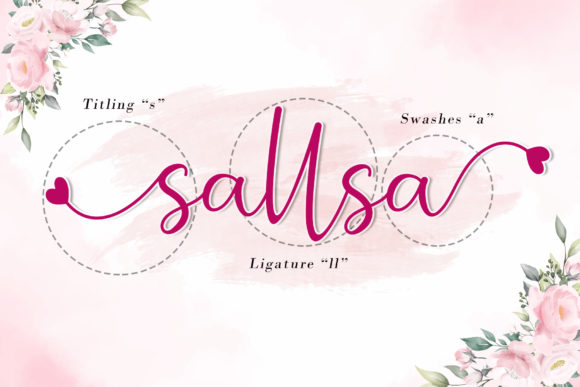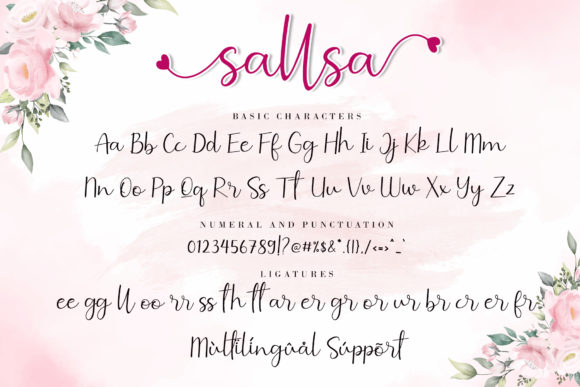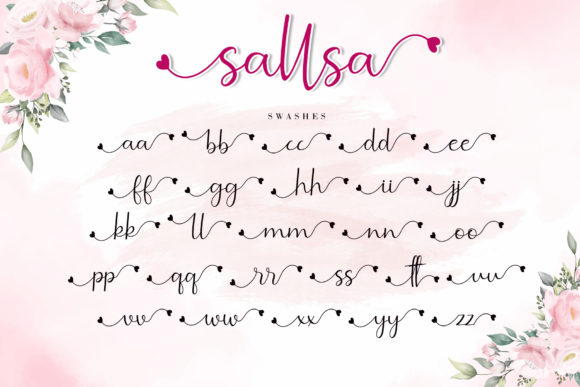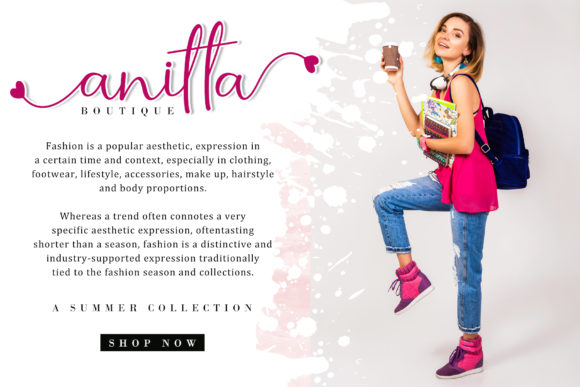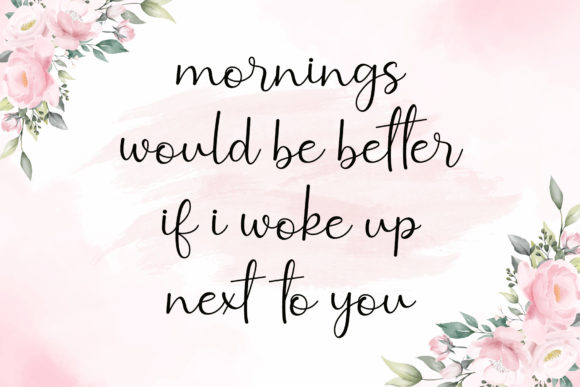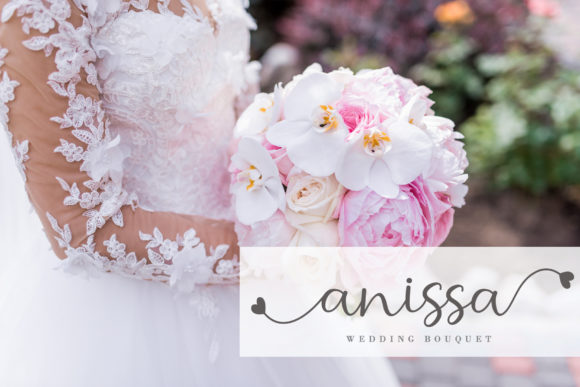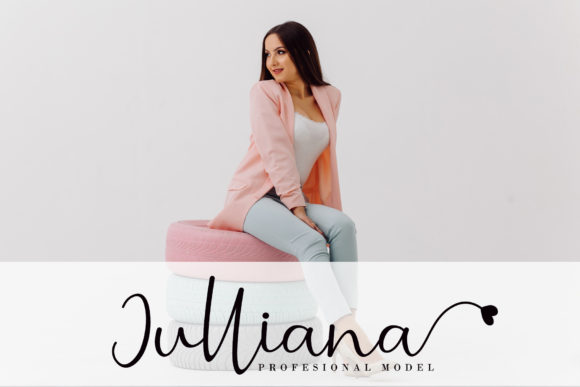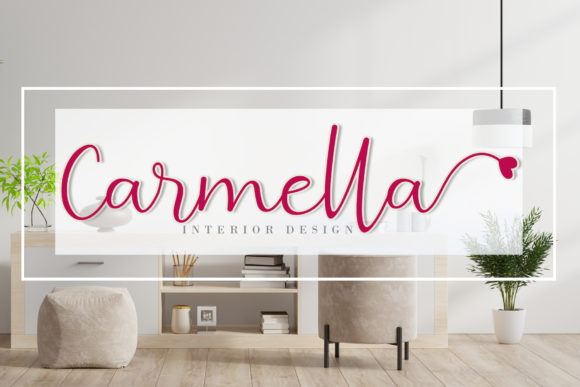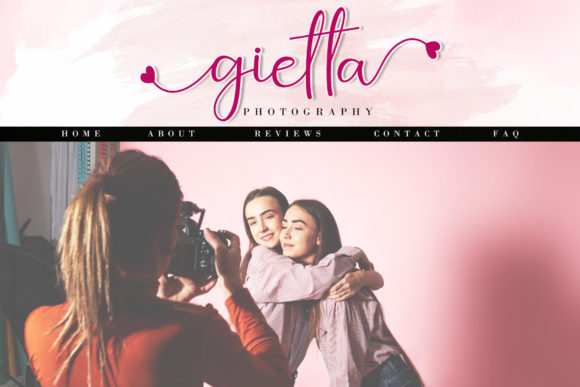
Sallsa Font
About Sallsa Font
Sallsa is a sweet and delicate handwritten font. It looks stunning on wedding invitations, thank you cards, quotes, greeting cards, logos, business cards and every other design which needs a handwritten touch. This font is PUA encoded which means you can access all of the glyphs and swashes with ease!